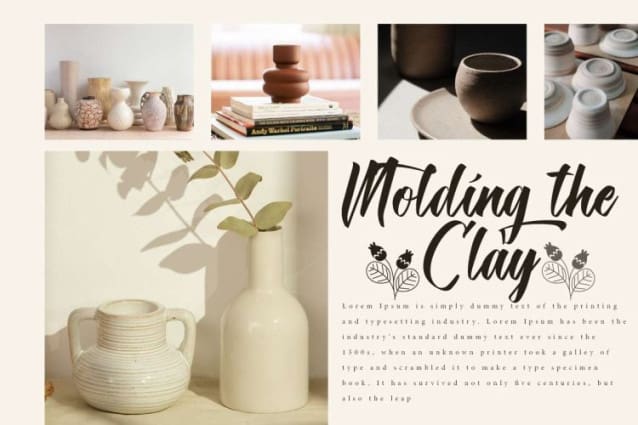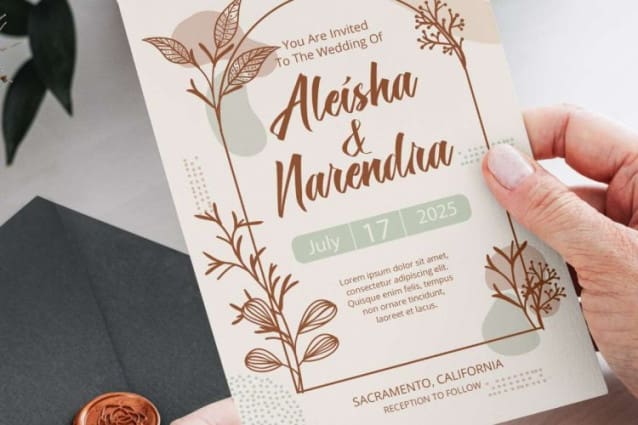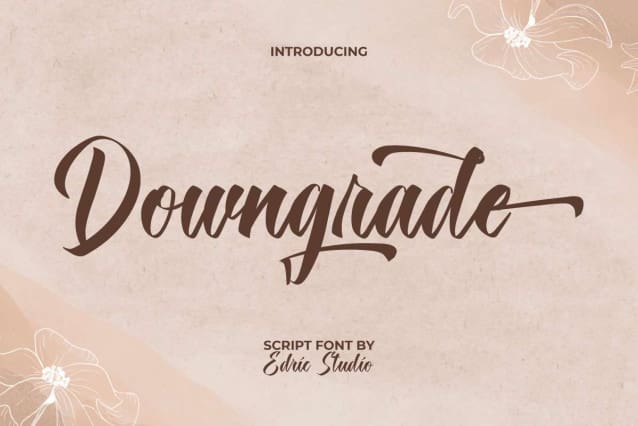
Downgrade Script Font
Downgrade Script Font is a stylish brush script font that is derived from a charming brush script type. This makes it look really beautiful in any projects including billboard, blogs, brochure, cover, flyer, greeting card, headline, invitation, logo branding, packaging design, product labels, quotes, screen print, signage, sticker, title, website, and much more.
Downgrade Serif Font provides a full set of Basic Uppercase and Lowercase Characters, Numbers, Punctuation, Symbols, Ligature, and Alternate. Original handcrafted typography with an aesthetic look. This will always convey the feelings of the maker to the wearer. Can be suited to various projects for any industry, such as accessories, advertising, architect, boutique, event organizer, fashion, florist, furniture, perfumer, pottery, real estate, skincare, spa salon, web designer, wedding, etc.
Downgrade Script Font also supports multilingual characters which are ready to use either on Windows or Mac machines with a simple installation. There are alternate characters that you can use for your designs, so you can freely use alternative glyphs and make your designs more stunning and stand out. It’s tested to work well in the Adobe Apps (Illustrator, Adobe InDesign, Adobe Photoshop) even work on Microsoft Word. All of these characters are available through the glyph panel, moreover each letter has its own unicode (PUA) so you can access all the characters easily.